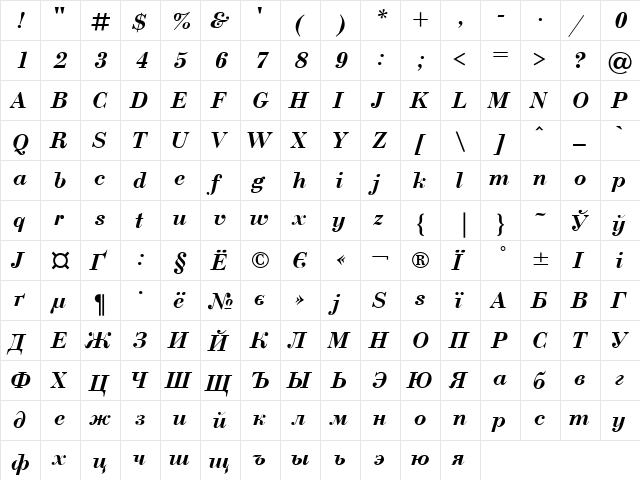
UkrainianBodoni BoldItalic Font Preview
Design Context for UkrainianBodoni Typeface
UkrainianBodoni takes a measured approach to typography — its balanced proportions and neutral character make it a reliable workhorse for both digital and print work. Its italic angle brings a sense of urgency and motion to the letterforms. Its bold stroke weight gives it real presence on the page.
Pro Tip: Try UkrainianBodoni for annotation and caption copy alongside an upright companion — the contrast in angle creates a dynamic but ordered typographic system.